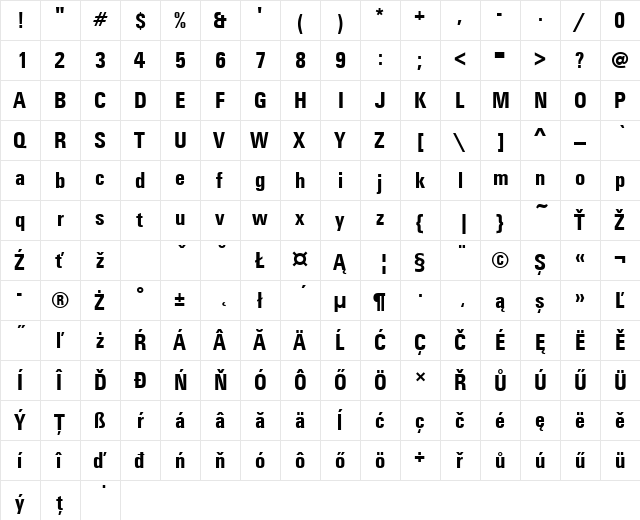
UnitusTEECon Bold Font Preview
UnitusTEECon Bold
UnitusTEECon Bold Font Details
Design Context for UnitusTEECon Typeface
UnitusTEECon is a composed and adaptable typeface that performs quietly and consistently across a wide range of design contexts. Its bold stroke weight gives it real presence on the page.